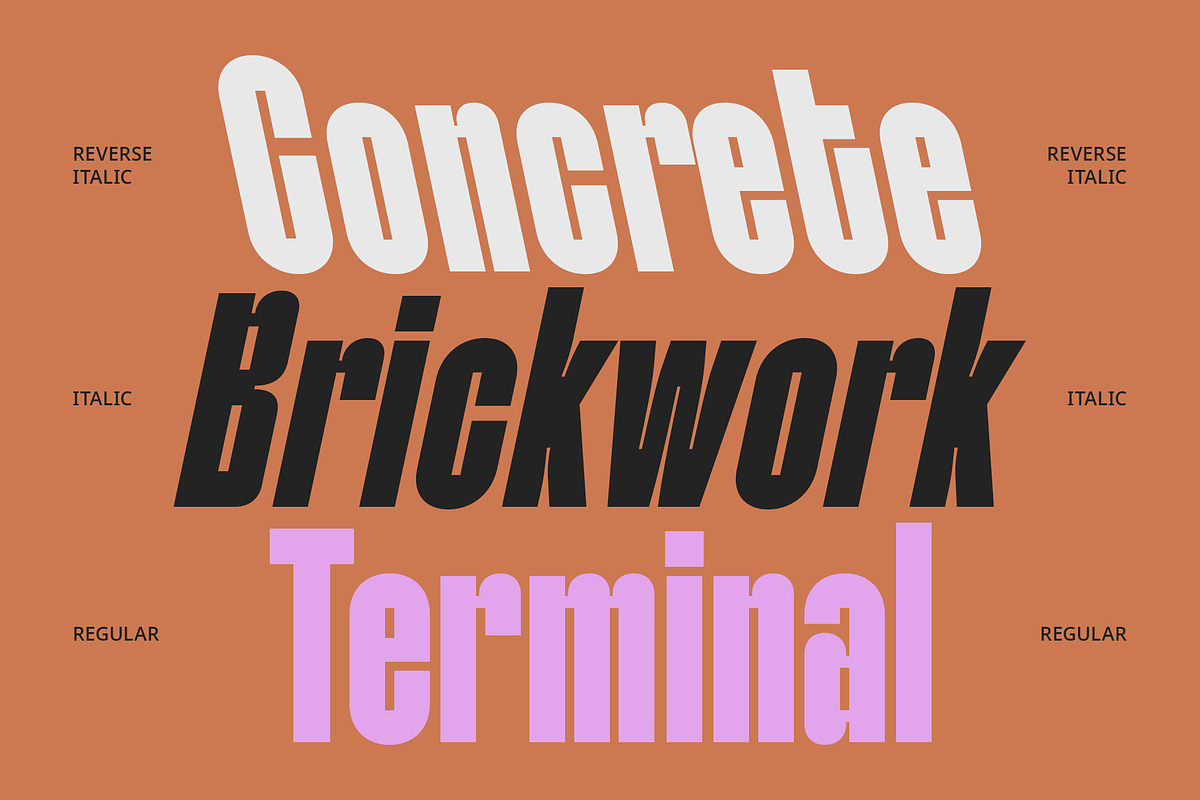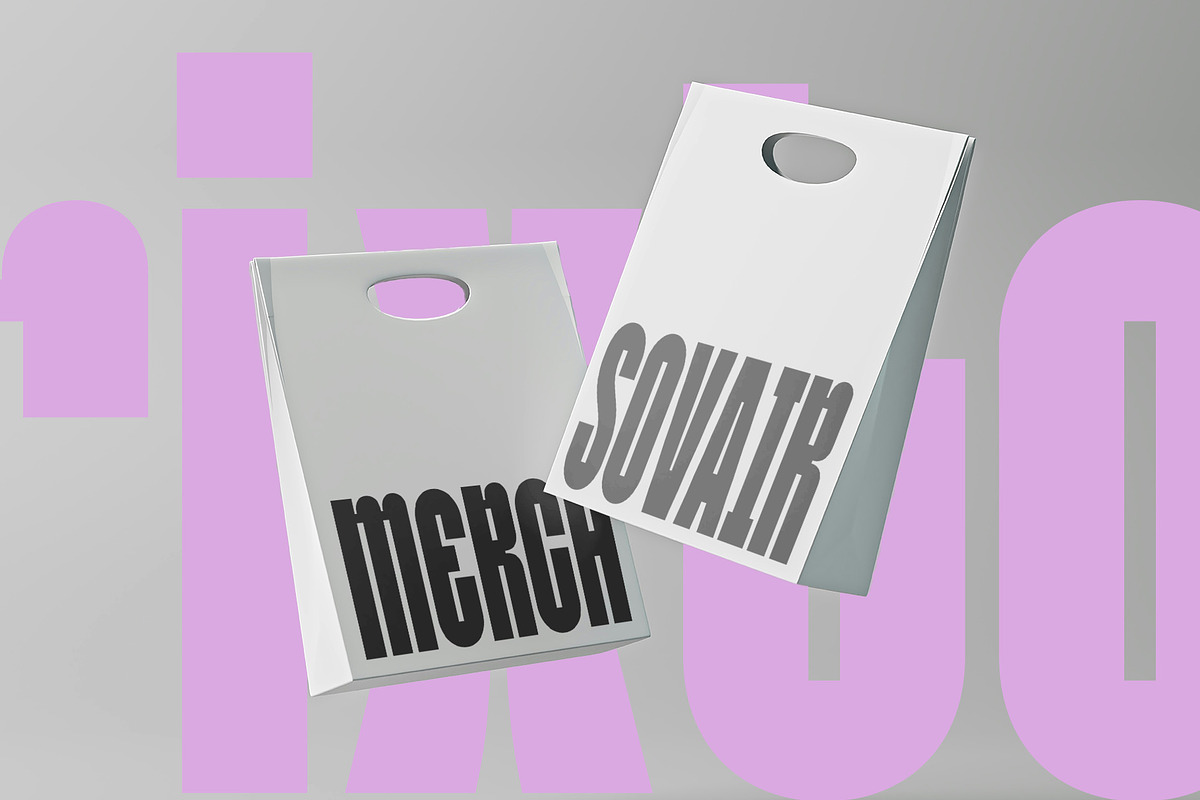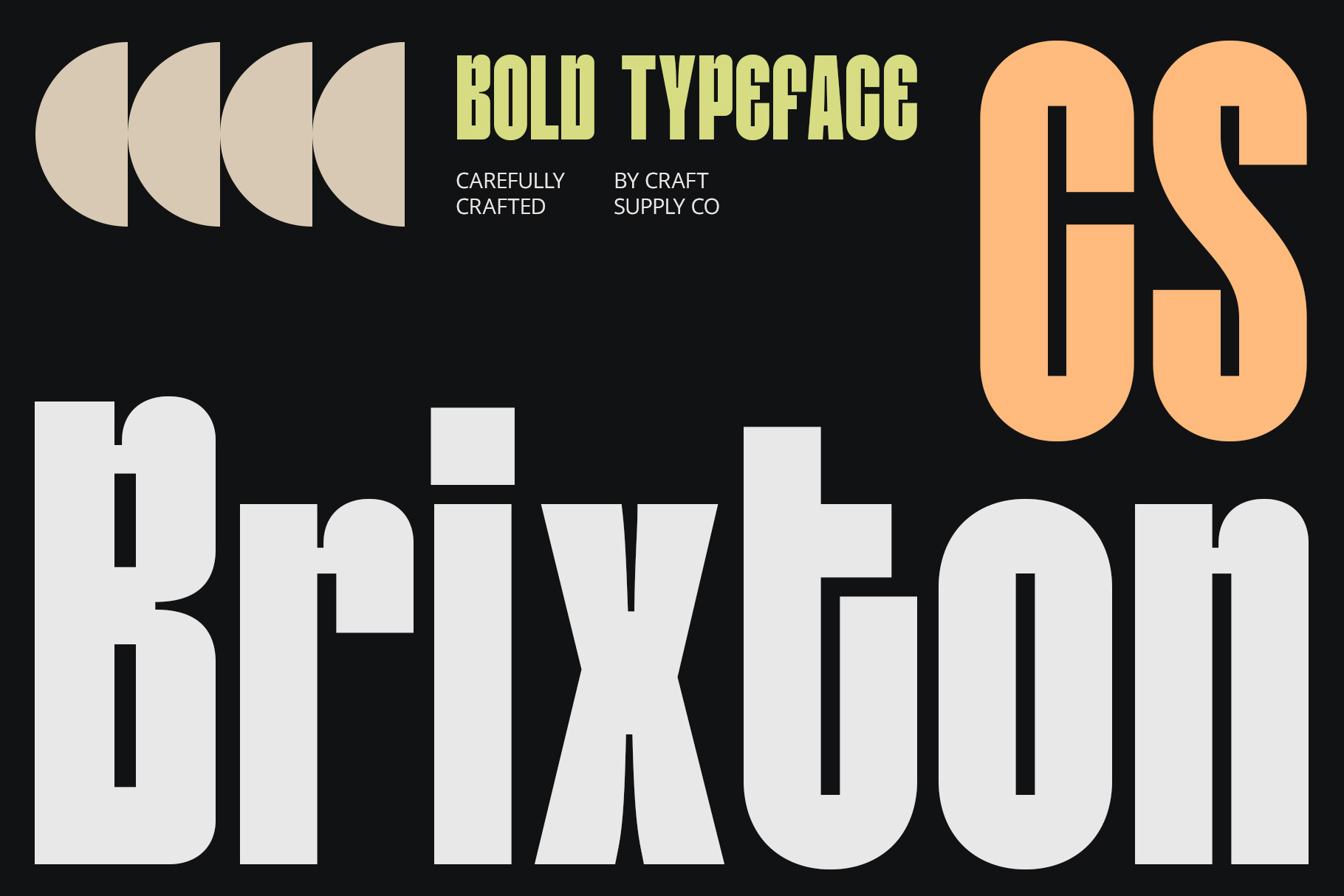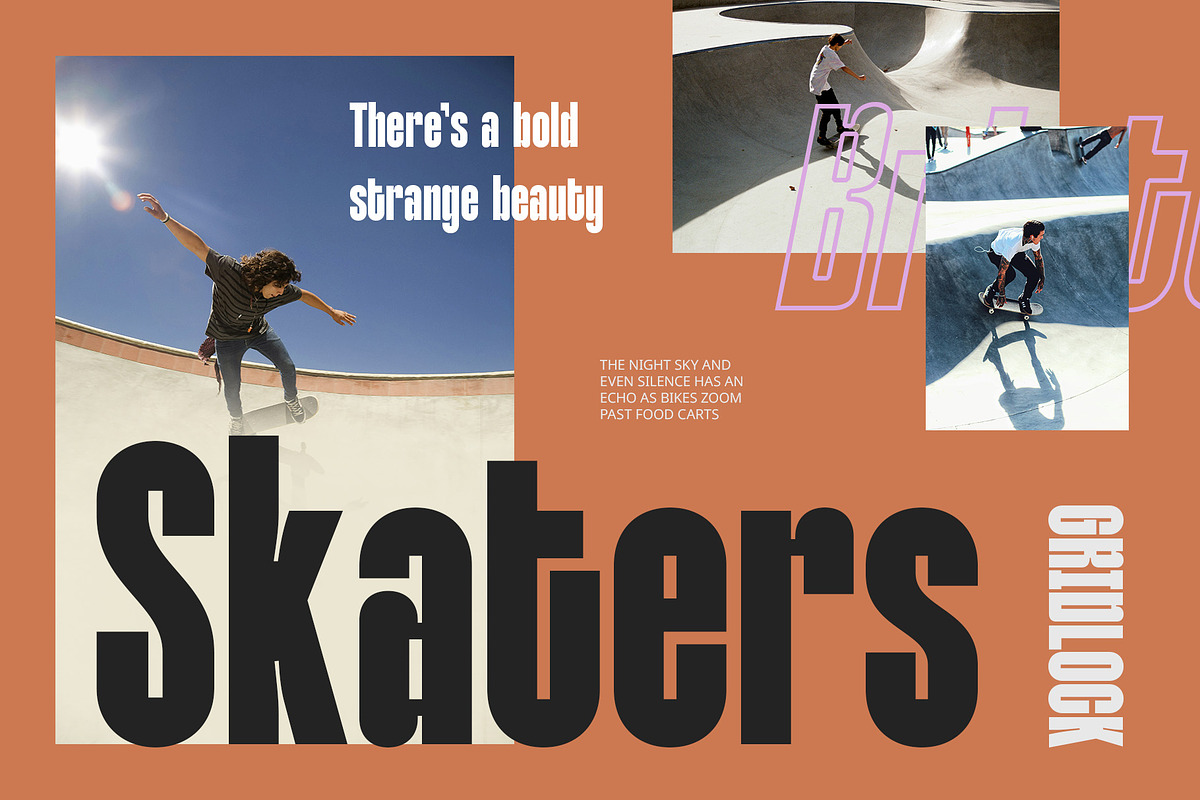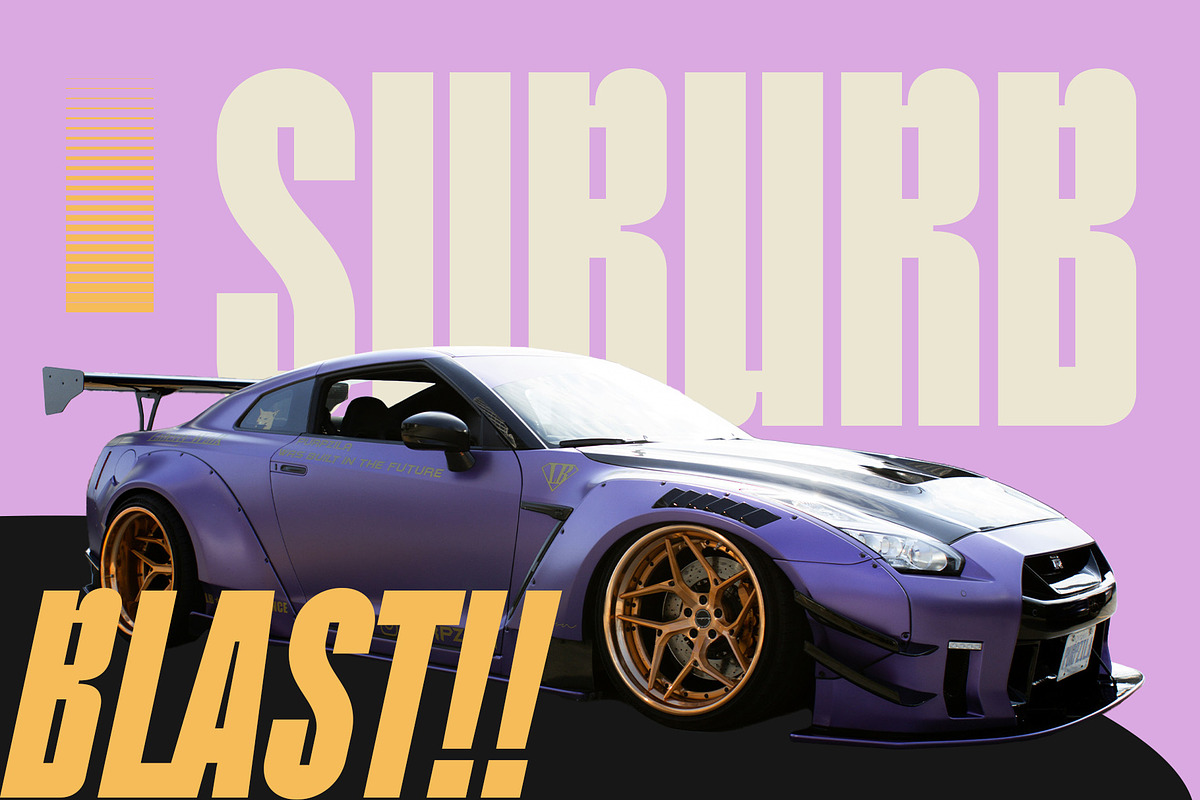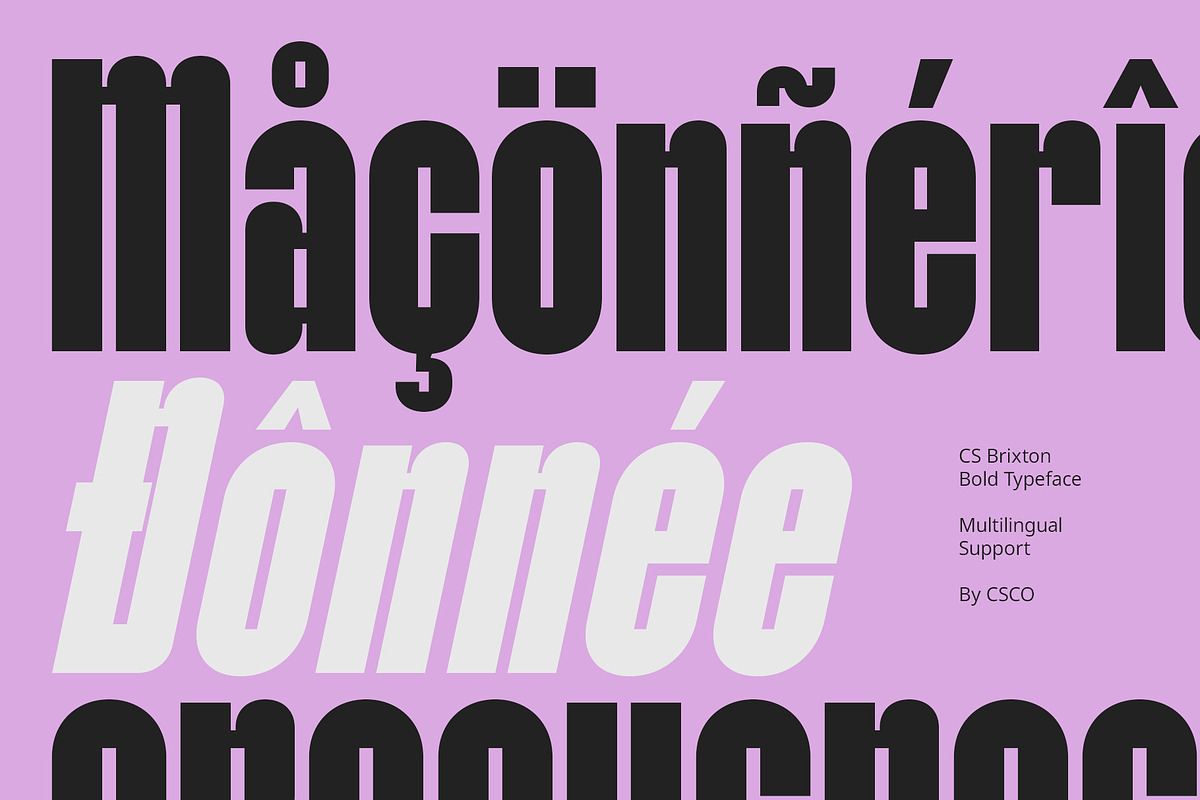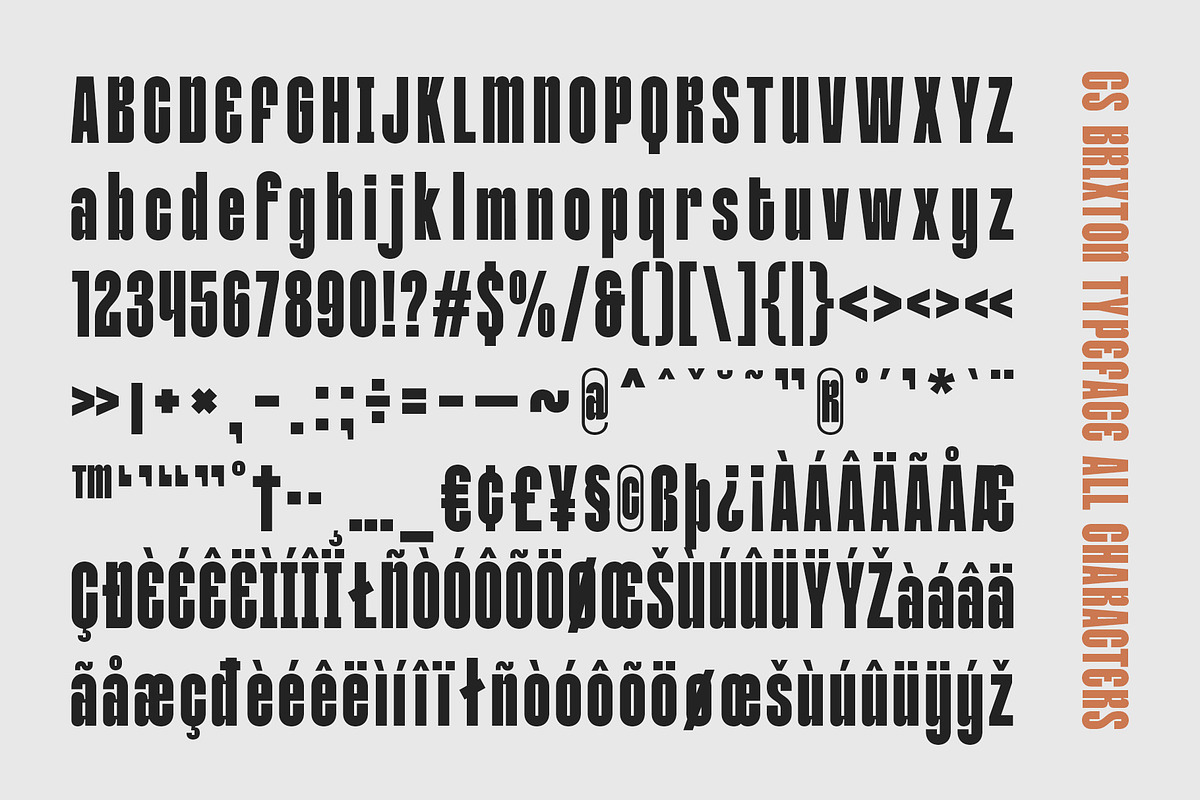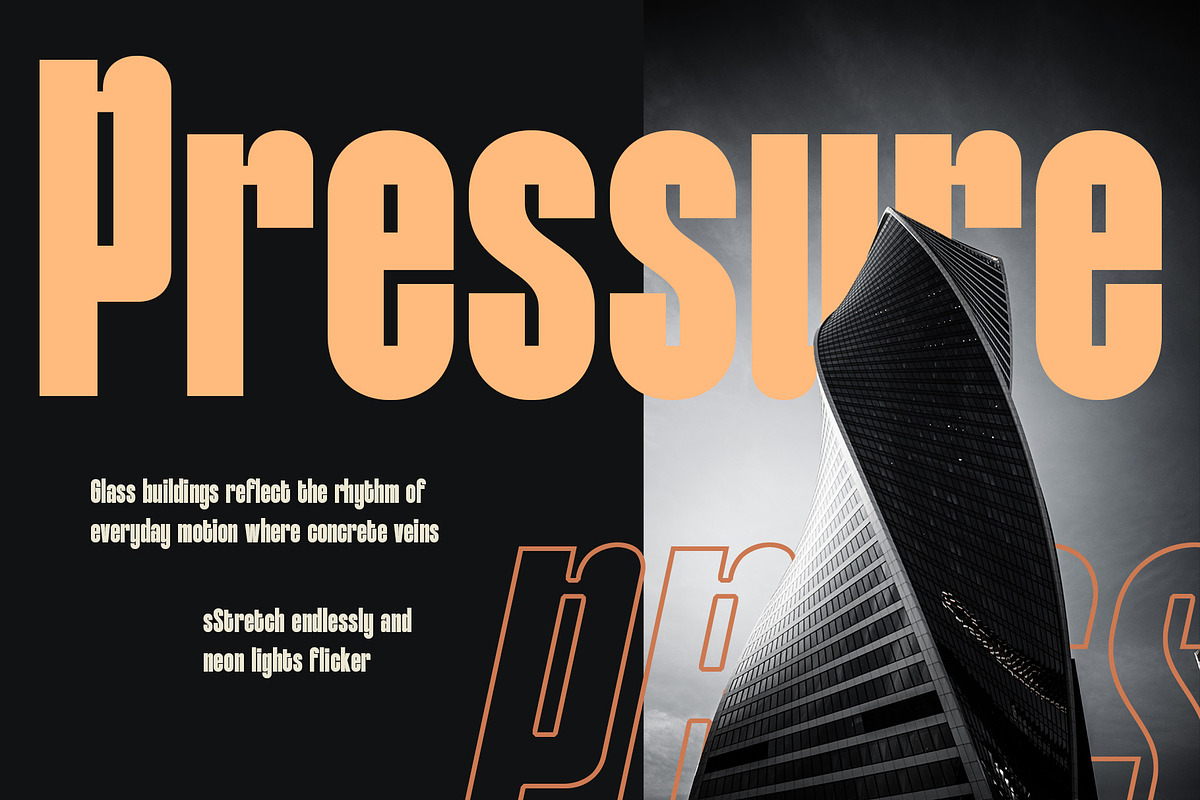
CS Brixton – Bold Font
CS Brixton Font – Bold Modern Sans Serif with Stylish Impact
Confident Letterforms with a Modern Edge CS Brixton is a bold modern sans serif font designed to make a powerful visual statement. With clean, contemporary, and uniquely shaped characters, it offers a stylish and commanding presence that instantly draws attention. The font’s strong construction and geometric balance lend a feeling of confidence and clarity, ideal for professional and creative designs alike.
Sleek, Cool, and Distinctive What sets CS Brixton apart is its ability to combine boldness with sophistication. The letterforms are tightly structured yet carry a cool, fashionable twist, making it a perfect fit for trend-forward branding, fashion identities, and visual storytelling on platforms like Instagram or TikTok. Its striking appearance adds a sense of uniqueness and professionalism to any project.
Ideal for Standout Branding and Visual Design Whether you’re designing a logo, product label, website header, or promo graphic, CS Brixton delivers a memorable and modern look. Its bold style ensures readability, while its distinctive forms guarantee your message won’t go unnoticed.
Perfect for Fashion and Digital Visuals Whether used in fashion branding, social media graphics, or creative campaigns, CS Brixton adds bold personality to every project. It’s the go-to font for designs that aim to be sharp, stylish, and memorable.
- CS Brixton Regular
- CS Brixton Italic
- CS Brixton Reverse Italic